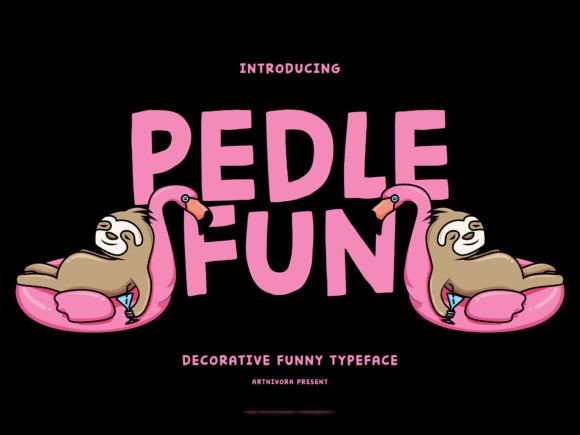
Dive into the world of graphic novels with Pedlefun Font, a display font family that will ignite your creativity and bring your stories to life. Crafted by the skilled hands of artnivora.std, Pedlefun is a whimsical and charming font that dances across the page, capturing the essence of adventure and wonder. Its playful personality adds a touch of magic to every design, making your graphic novels stand out from the crowd.
With Pedlefun Font, you can effortlessly create captivating titles, dynamic dialogue, and enchanting narratives that draw readers into your world. Its unique and expressive characters add depth and emotion to every scene, enhancing the reader's connection to your characters. Unleash your imagination and let Pedlefun Font guide you on an artistic journey like no other.
Step into a realm where words dance and stories come alive. Pedlefun Font is the perfect companion for graphic novelists looking to make a lasting impact. Its versatility knows no bounds, adapting seamlessly to various styles and genres. Bring your characters to life with Pedlefun's playful charm, or let its quirky nature add a touch of humor to your tales.
With Pedlefun Font, you'll discover a font that's not just a collection of letters, but a gateway to endless possibilities. Its enchanting aura will captivate readers of all ages, leaving them eagerly anticipating your next masterpiece. So, embrace the magic of Pedlefun Font and embark on a creative adventure that will leave an indelible mark on the world of graphic novels.